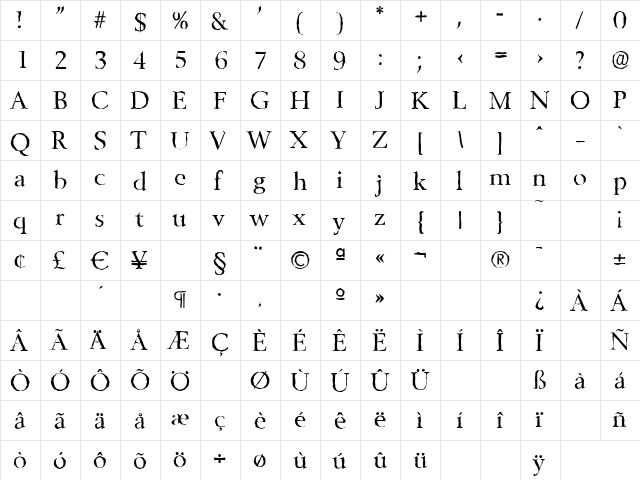
BelfastAntique Regular
Design Context for BelfastAntique Typeface
BelfastAntique wears its vintage influences proudly, with letterforms that recall mid-century signage, classic packaging, and nostalgia-driven design.
Font Pairing: Combine BelfastAntique with a simple slab or neutral sans — period-accurate companions reinforce the vintage feel without competing for attention.
Pro Tip: Lean into BelfastAntique's period character by pairing it with aged paper textures, muted colour palettes, and vintage illustration styles.